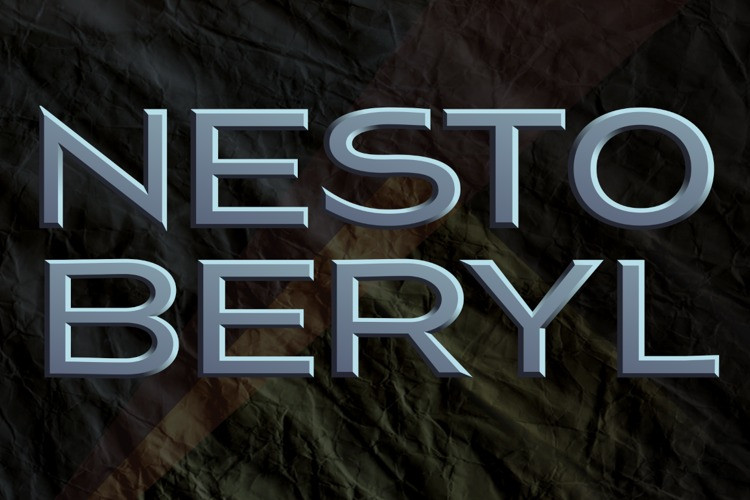
Nesto Beryl Font
Nesto Beryl Font is a cool, assertive, and adaptable color font. Add it confidently to your favorite creations and let yourself be amazed by the outcome generated.
Color font Nesto Beryl42 with full vector glyphs and gradients.
Automatic contextual alternates built into the fonts compensate for whitespace area differences.